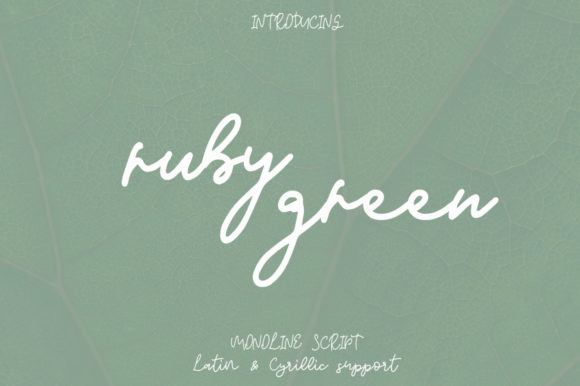
Welcome to the world of Ruby Green Font, a captivating script font family that will transform your creative visions into breathtaking realities. With its elegant curves, playful strokes, and undeniable charm, Ruby Green is the perfect choice for those seeking a font that exudes both sophistication and playfulness.
Step into a realm where your words dance with grace and personality. Ruby Green, meticulously crafted by the talented Katie Holland, is a symphony of flowing lines and delicate details. Each letter, a masterpiece in its own right, possesses a unique charm that brings your designs to life, infusing them with an enchanting handwritten quality.
With Ruby Green, you unlock the power to captivate audiences and leave a lasting impression. Create eye-catching logos that demand attention, branding that resonates with your essence, and quotes that inspire and uplift. Whether you're a seasoned designer or just starting your creative journey, Ruby Green is your perfect companion, guiding you towards design excellence.
Experience the magic of Ruby Green today and elevate your designs to new heights. Its versatility knows no bounds, lending its charm to a myriad of projects, from wedding invitations and social media graphics to product packaging and editorial designs. Let Ruby Green be your creative muse, igniting your imagination and bringing your artistic visions to life.